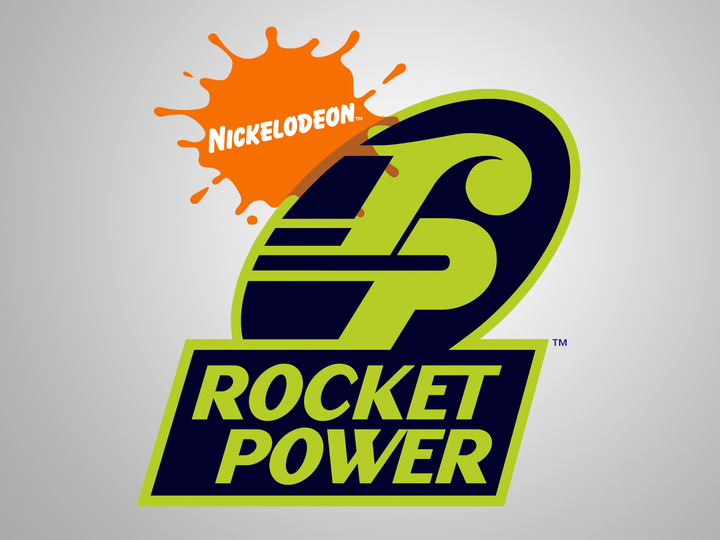
Rocket Power [TV Show] Font
AdventureRocket Power is an American animated tv show that aired on Nickelodeon from August 16, 1999, to July 30, 2004. The series shows the adventures of four young friend and their love for action and extreme sports in the fictional town of Ocean Shores, California.
The Rocket Power logo of the TV series is set in a font called Dogma Bold (manually italicized), by Zuzana Licko in 1994. Four styles of the font family are offered: Bold, Black, Script Bold, and Script Outline.